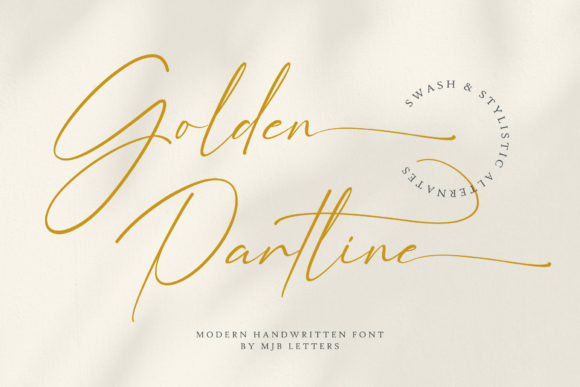
Feast your eyes on Golden Partline – a script font that effortlessly exudes elegance and charm. With its natural flow and captivating characters, Golden Partline is not just a font; it's an artistic expression waiting to transform your designs into masterpieces.
Immerse yourself in a world of creativity as you explore the endless possibilities that Golden Partline offers. Elevate your wedding invitations to ethereal heights, adding a touch of magic to your special day. Let your imagination run wild as you craft exquisite labels, logos, and branding that radiates professionalism and sophistication.
Unleash your inner artist with Golden Partline and bring your craft projects to life. Create heartfelt quotes that resonate with emotion, transforming ordinary words into works of art. From heartfelt messages to inspiring affirmations, Golden Partline empowers you to express yourself with unparalleled beauty.
But that's not all – Golden Partline's versatility extends far beyond traditional design realms. Step into the digital arena and watch as your Canva creations come alive. With Golden Partline as your trusty companion, numbers become mesmerizing works of art, capturing attention and leaving a lasting impression.
Experience the ease of use that Golden Partline offers, thanks to its PUA encoding. Access all the glyphs and swashes with effortless grace, allowing your creativity to flow without hindrance. Open up a world of endless possibilities and let Golden Partline guide you on a journey of design excellence.